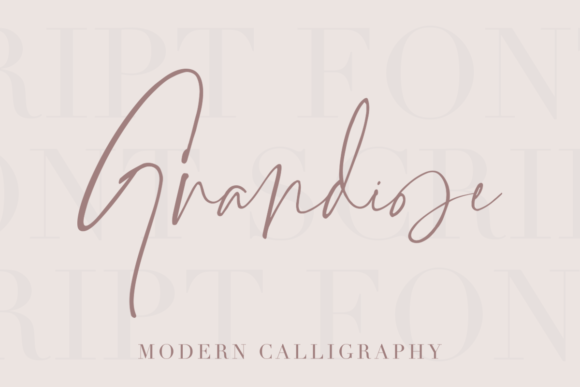
Behold the Enchanting Grandiose Font: A Symphony of Script Elegance
Journey into the world of exquisite typography with Grandiose, a mesmerizing script font crafted by the talented artists at Dharmas Studio. This extraordinary font exudes a captivating aura, inviting you to explore its boundless creative possibilities. Grandiose's meticulously designed characters dance upon the page, each stroke imbued with emotion and grace.
Unleash Your Creativity with an Array of Styles
Indulge in the versatility of Grandiose, a font family that offers a treasure trove of styles to suit your every creative whim. From elegant swashes to playful alternates, Grandiose adapts seamlessly to your artistic vision. Let your imagination soar as you craft stunning logos, captivating social media graphics, and eye-catching website designs.
Ignite Your Passion with Grandiose's Enchanting Characters
Prepare to be mesmerized by Grandiose's captivating characters, meticulously crafted to evoke a sense of wonder and inspiration. Each letterform possesses a unique charm, adorned with delicate flourishes and graceful curves. As you type, you'll feel a surge of creativity coursing through your veins, propelling you towards artistic greatness.
Add a Touch of Elegance to Your Design Projects
Embrace the timeless beauty of Grandiose, a font that effortlessly adds a touch of sophistication to any design project. Whether you're creating wedding invitations, greeting cards, or marketing materials, Grandiose will elevate your work to new heights of elegance. Its refined aesthetic is sure to leave a lasting impression on your audience.
Experience the Joy of Effortless Design
With Grandiose, say goodbye to the frustration of endless font pairing and endless searching for the perfect match. This remarkable font stands alone, captivating and complete. Its cohesive design ensures seamless integration into your projects, allowing you to focus on the creative journey without distraction.
Unlock Your Creative Potential with Grandiose